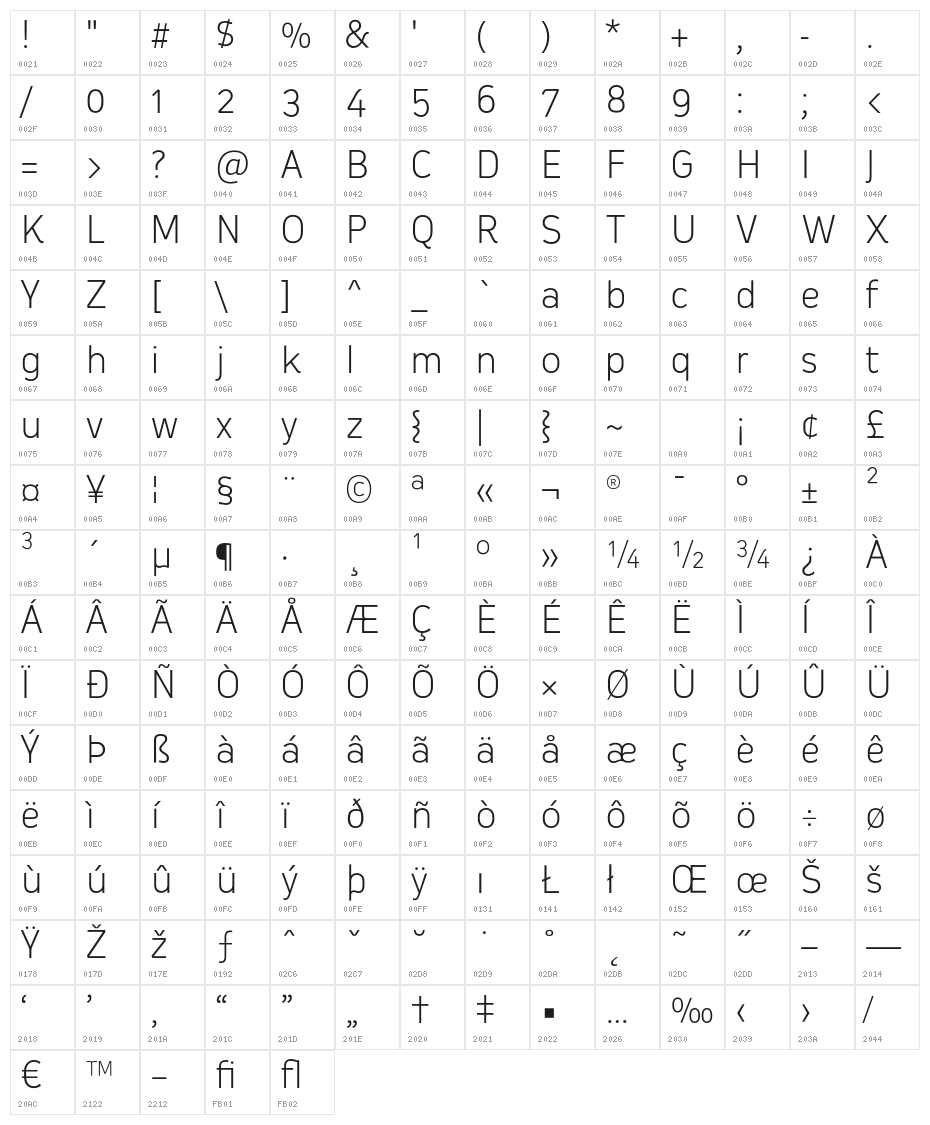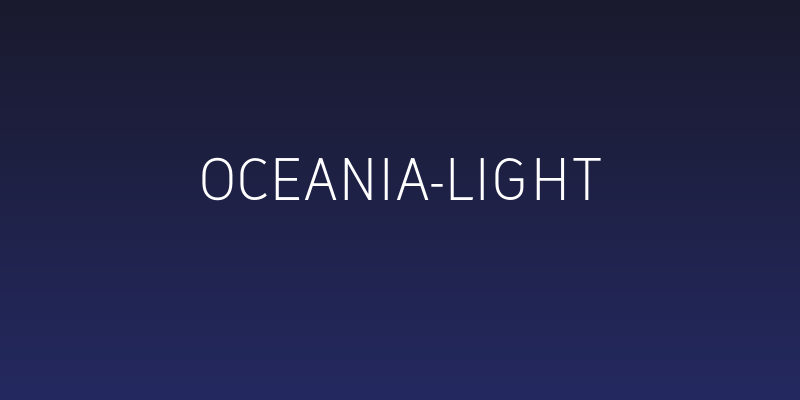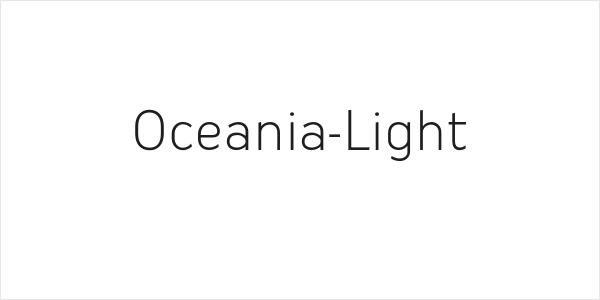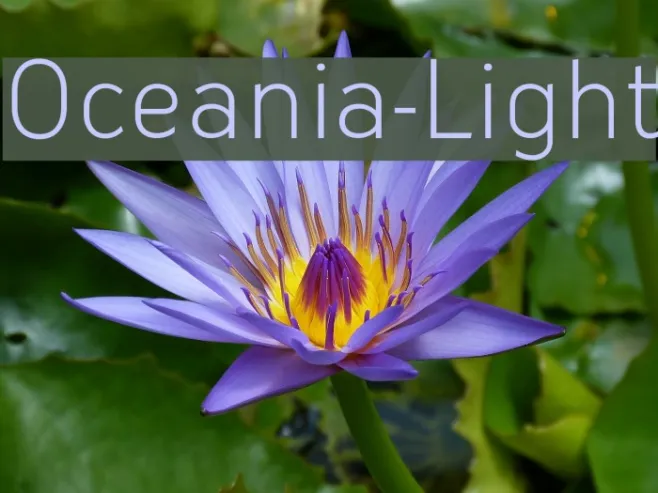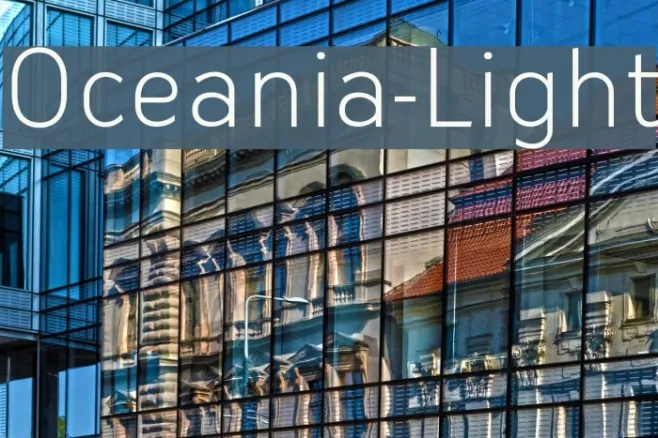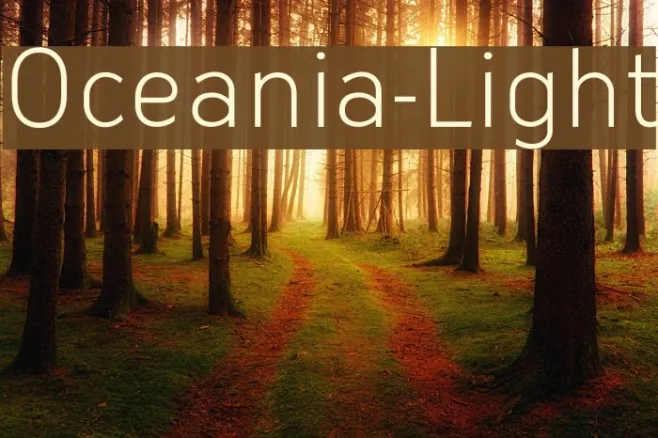
Oceania-Light Font
Oceania-Light Description
This font features a clean and modern sans-serif design with a light weight, making it ideal for contemporary applications. The characters are well-proportioned with a consistent stroke width, contributing to its readability and sleek appearance. The uppercase and lowercase letters maintain a harmonious balance, while the numerals and special characters are crafted with precision. Its minimalist style is suitable for a wide range of design projects, offering versatility and elegance.